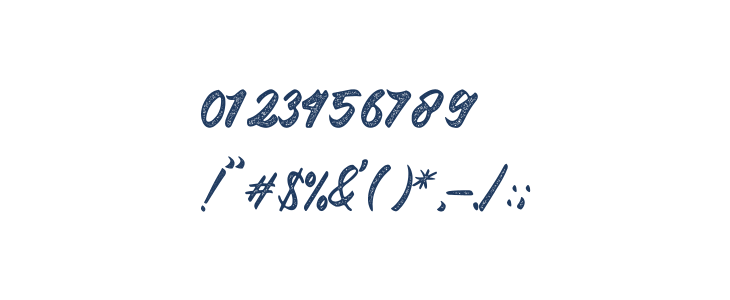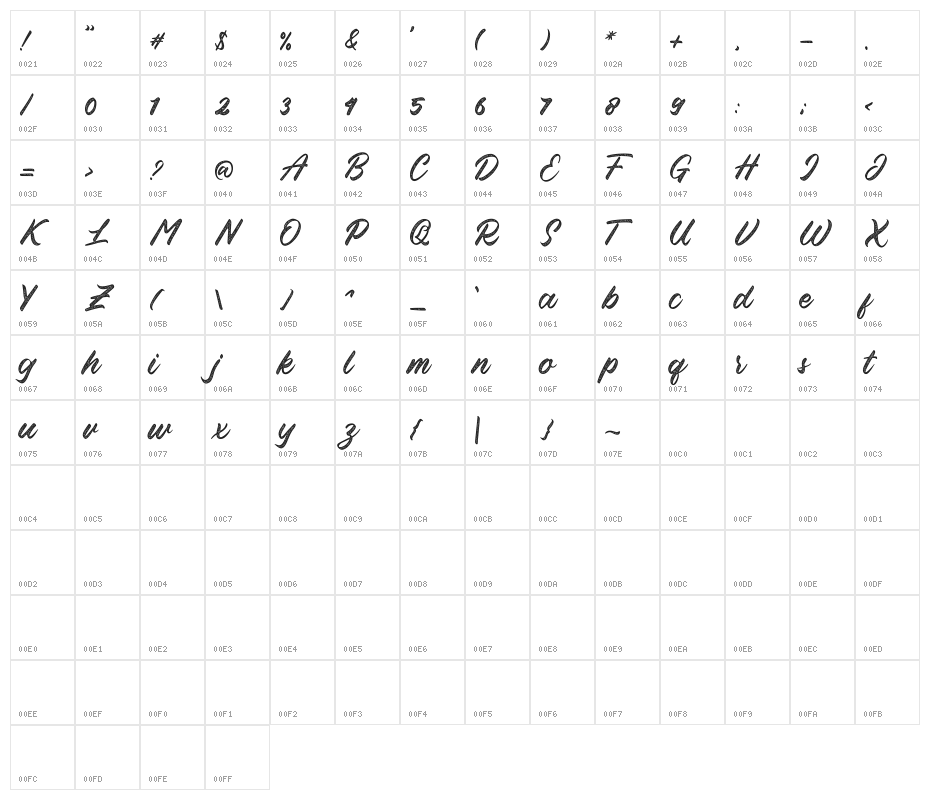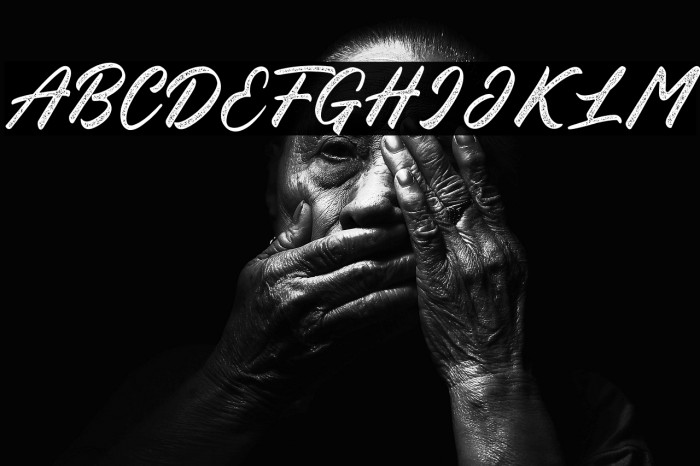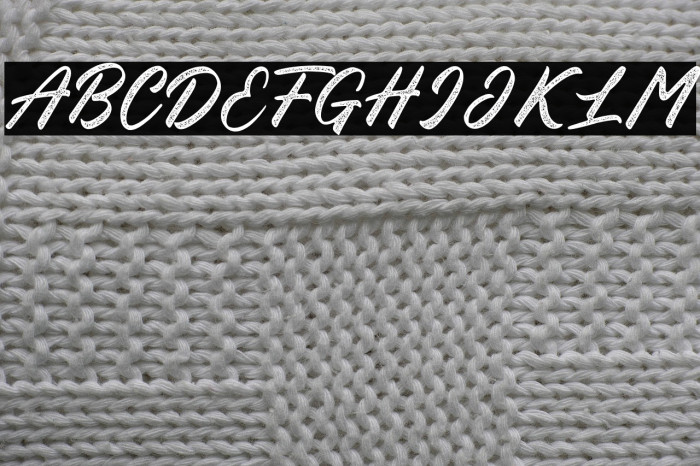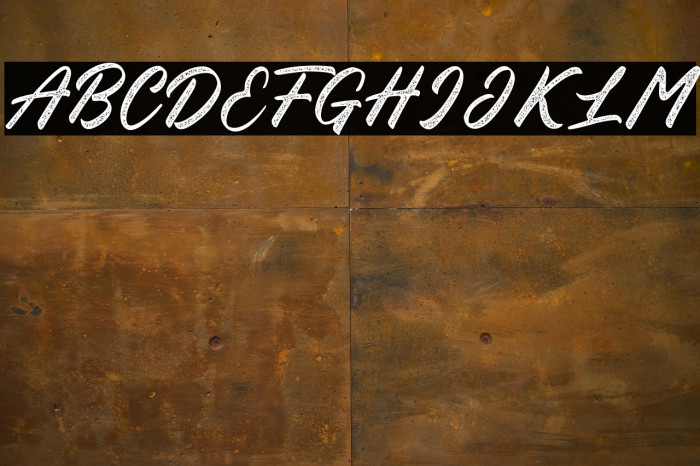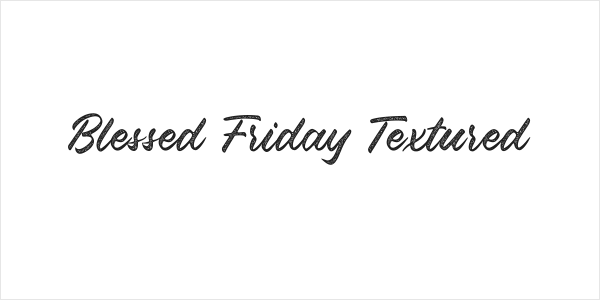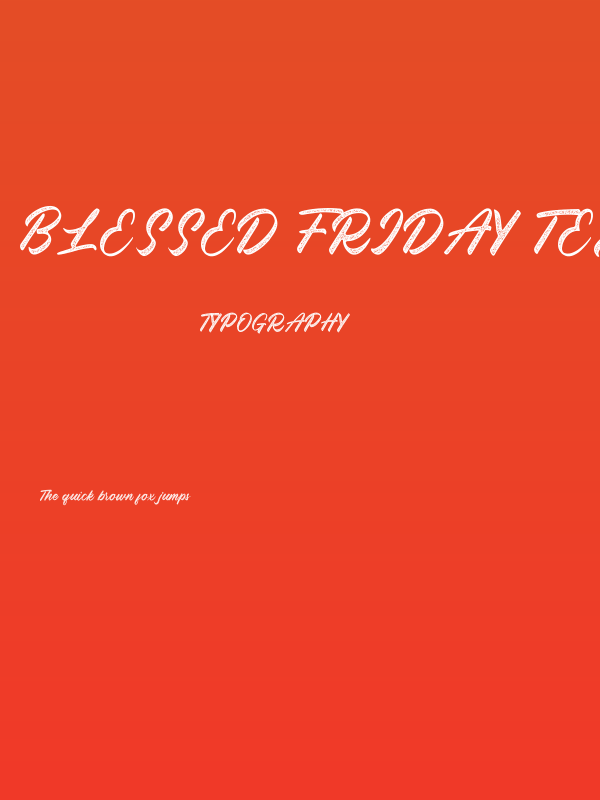
Blessed Friday Textured Font
Blessed Friday Textured Description
This font features a textured, brush-like script style that exudes a sense of casual elegance and artistic flair. The uppercase and lowercase letters are designed with a flowing, cursive form, giving it a handwritten appearance. The texture within each character adds a unique, distressed look, reminiscent of chalk or paint strokes. This adds depth and character, making it stand out for creative projects. The numerals and special characters maintain the same textured style, ensuring consistency across all elements. The overall design is both playful and sophisticated, making it versatile for various design needs.
| Proposed Projects | Ideal for greeting cards, invitations, branding, and artistic posters. |